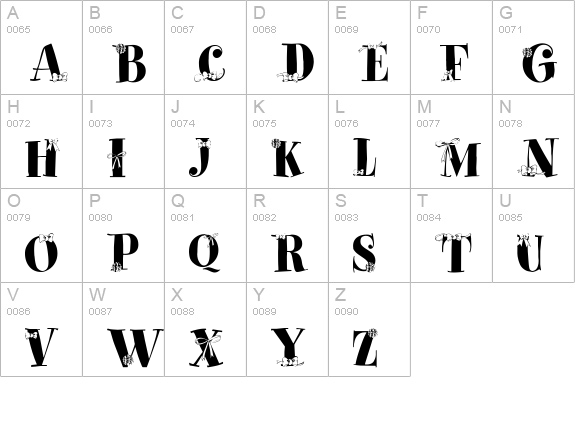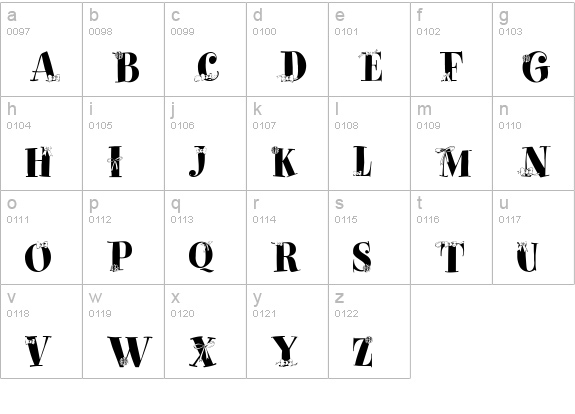
Paquet Cadeaux Font Details
Introducing Paquet Cadeaux, a captivating and versatile font that exudes elegance and charm. This typeface is a perfect choice for all your design projects, whether you're creating invitations, greeting cards, or branding materials. With its delicate serifs and graceful curves, Paquet Cadeaux effortlessly adds a touch of sophistication to any text. One of the most remarkable aspects of Paquet Cadeaux is that it is available for free. Yes, you read that right! This exquisite font can be freely downloaded from FontsMarket.com, allowing you to elevate your designs without breaking the bank. Whether you're a professional designer or an enthusiast, this font is a must-have in your collection. Paquet Cadeaux offers a wide range of stylistic alternates and ligatures, giving you endless possibilities to customize your text. Its versatility ensures that it can adapt to any design concept, from modern and minimalist to vintage and ornate. With Paquet Cadeaux, you can effortlessly convey your message with elegance and sophistication. The attention to detail in this font is truly exceptional. Each letter has been meticulously crafted to ensure a harmonious and visually pleasing composition. Its legibility is superb, making it suitable for both headlines and body text. Paquet Cadeaux is a font that effortlessly combines beauty and functionality. Don't miss out on the opportunity to enhance your designs with Paquet Cadeaux. Download this stunning font for free at FontsMarket.com and unlock a world of creative possibilities. Whether you're designing for personal or commercial use, Paquet Cadeaux will undoubtedly leave a lasting impression on your audience. Elevate your typography game today with this exceptional font.